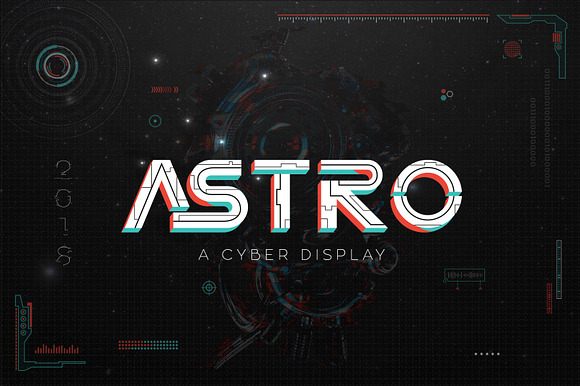
Astro Font
This cosmic typeface is perfect for space agency branding, planetarium exhibition graphics, astronomy club materials, science fiction movie titles, aerospace technology marketing, space exploration campaigns, observatory signage, and futuristic scientific presentations. Astro Font delivers stellar sophistication in applications where cosmic wonder and scientific precision are essential for inspiring audiences fascinated by space exploration and astronomical discoveries.
What makes Astro Font so exciting is its masterful interpretation of celestial mechanics and space-age aesthetics through precision typography. The font features sleek, geometric letterforms with orbital characteristics that suggest planetary motion and cosmic harmony. Each character has been meticulously engineered to convey scientific accuracy while maintaining exceptional readability across various astronomical applications. The typeface's cosmic personality creates immediate associations with space exploration and scientific discovery, making it perfect for organizations and brands dedicated to advancing human understanding of the universe through their visual identity.
The Astro Font includes stellar style variations: Regular, Bold, Light, and Extended versions. This cosmic collection provides designers with comprehensive tools to create dynamic layouts and establish authoritative typographic treatments that capture the essence of space exploration and astronomical wonder. Each style maintains the font's inherent precision while offering different emphasis levels for various scientific applications and space-themed design contexts.
Whether you're developing space science institution identities, creating astronomical education materials, or designing futuristic technology campaigns, Astro Font Free Download delivers the cosmic aesthetic that inspires wonder in space enthusiasts and science-minded audiences. Its stellar character makes it particularly suitable for space agencies, planetariums, aerospace companies, and scientific research institutions. The font's commanding presence ensures credibility in both technical documentation and space exploration marketing applications, while its versatile design adapts perfectly to both contemporary and futuristic scientific environments.
This stellar typeface represents the gold standard for designers who understand the critical importance of precision and wonder in space science and astronomical brand communication.